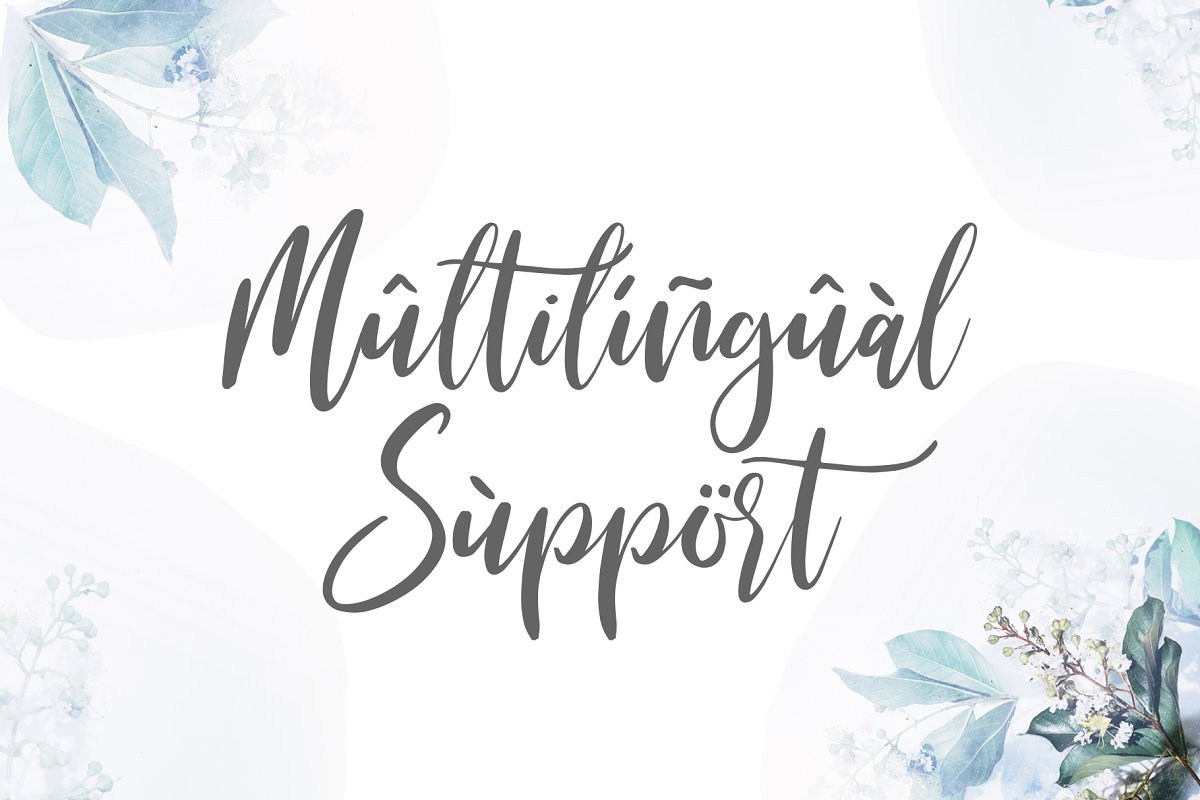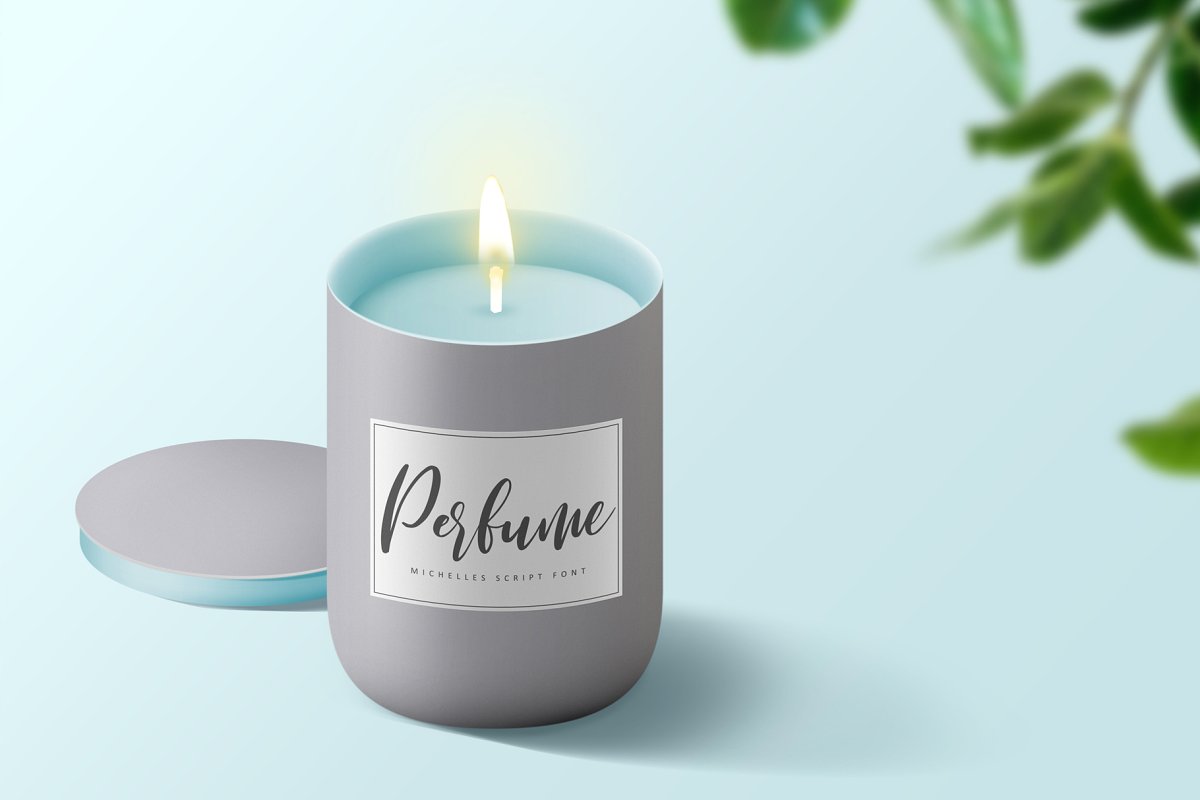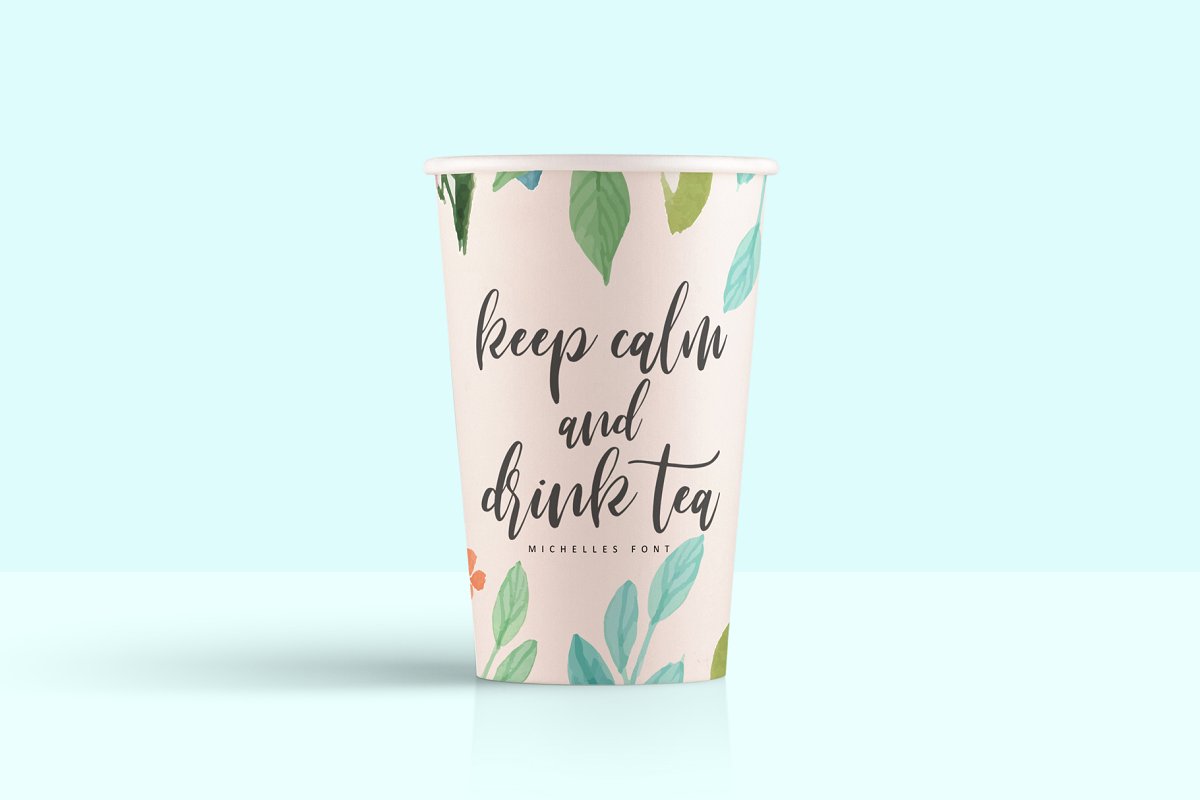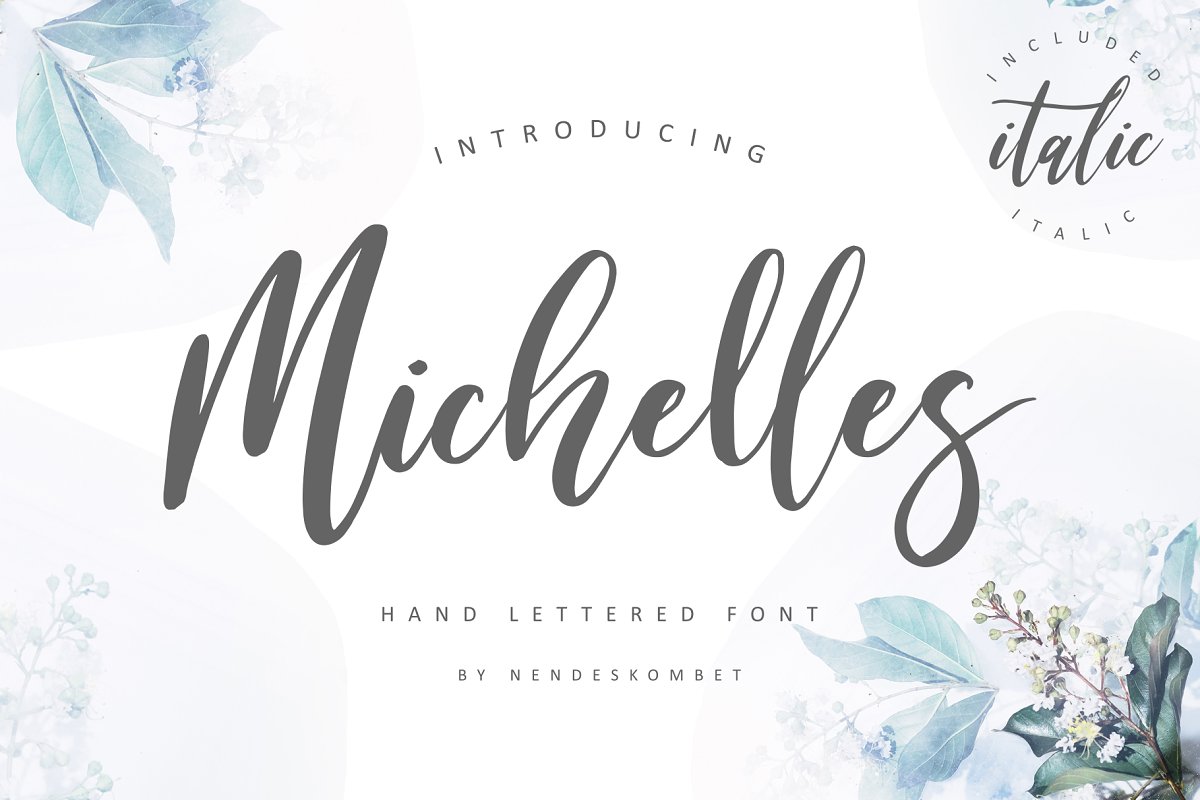
Michelles Script Font
Michelles Font – a new fresh handmade calligraphy font. A fabulously fun yet elegant script font with tons of energy, allowing you to create beautiful hand-made typography in an instant. Michelles Script is guaranteed to make your text stand out – perfect for logos, printed quotes, invitations, cards, product packaging, headers and whatever your imagination holds.